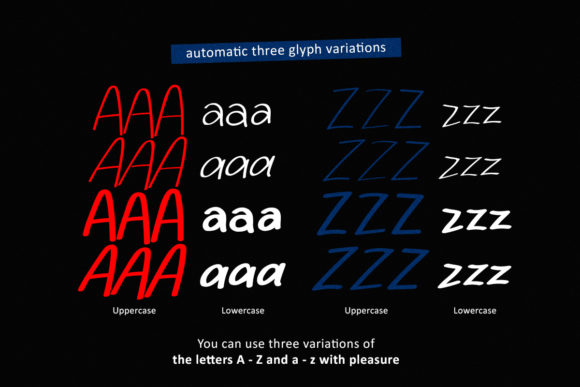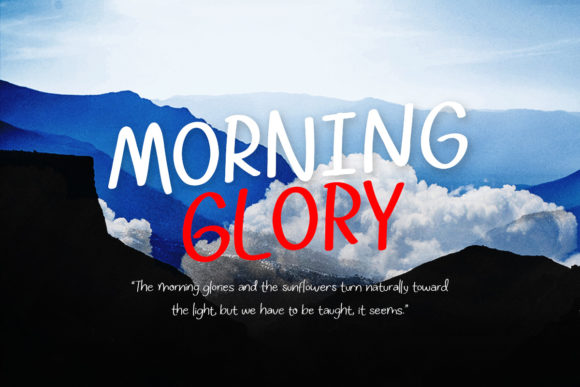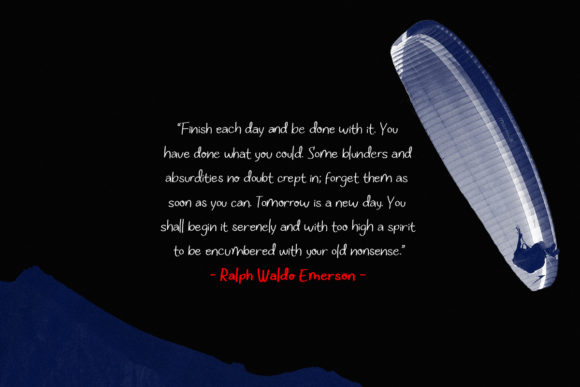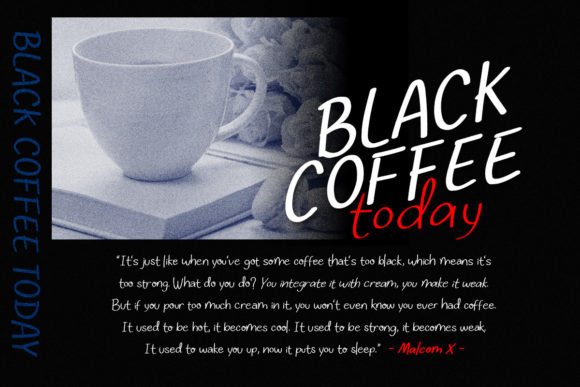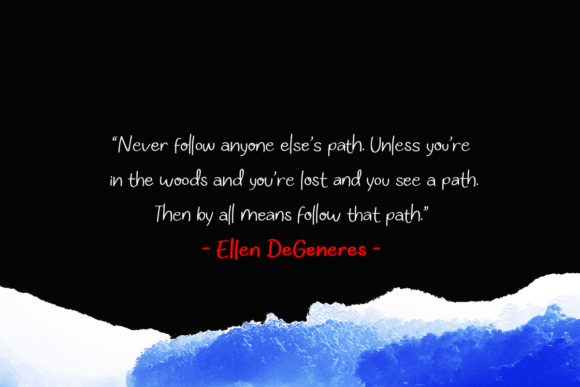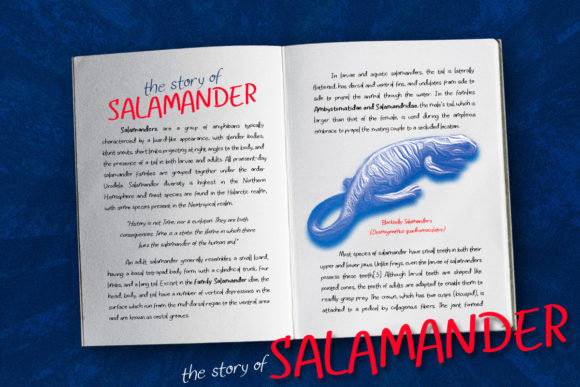
Introduction to Relax Font
Relax is a brush handwritten font.
Its casual charm makes it appear wonderfully down-to-earth, readable and, ultimately, incredibly versatile Relax will look outstanding in any context, whether itโs being used on busy backgrounds or as a standalone headline.